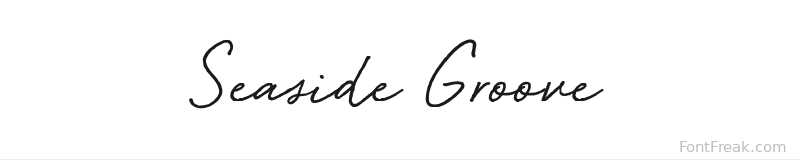
Seaside Groove
About Seaside Groove
Seaside Groove by BLKBK Fonts is a captivating script font that exudes a relaxed, beach-inspired vibe. With its fluid, cursive strokes, this typeface beautifully captures the essence of coastal living. The font features a medium stroke weight with smooth transitions between thick and thin lines, creating a harmonious flow that is both elegant and inviting. The generous spacing between characters enhances readability, making it suitable for a variety of design applications.
This versatile font is perfect for a range of creative projects. It shines in wedding invitations, where its romantic flair adds a touch of sophistication. Additionally, Seaside Groove is an excellent choice for restaurant menus that aim to convey a casual, seaside atmosphere. Graphic designers can utilize this typeface for branding elements, especially for businesses related to travel, leisure, or hospitality. Content creators will find it ideal for social media graphics, where an engaging and stylish text can capture attention.
Targeting graphic designers, small business owners, and content creators, Seaside Groove offers a unique solution for those looking to infuse their work with a laid-back yet polished aesthetic. It is particularly appealing to those who appreciate the beauty of handwritten elements combined with modern design sensibilities.
Its standout features lie in its ability to evoke a sense of tranquility and warmth, making any project feel more inviting. The Seaside Groove font free download allows users to incorporate this charming typeface into their work without any financial commitment, opening the door for creativity without constraints. Whether you are designing for personal or commercial use, Seaside Groove brings a refreshing touch that resonates with the spirit of the seaside.